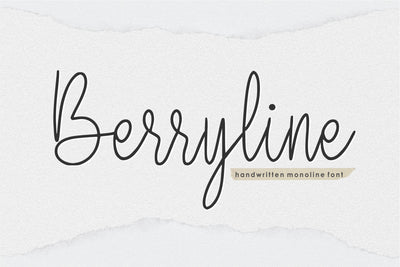
Berryline
Introducing by Qwrtype
Proudly Present, Berryline
Berryline is a Handwritten Monoline Font
Berryline is perfect for product packaging, branding project, megazine, social media, wedding, or just used to express words above the background.